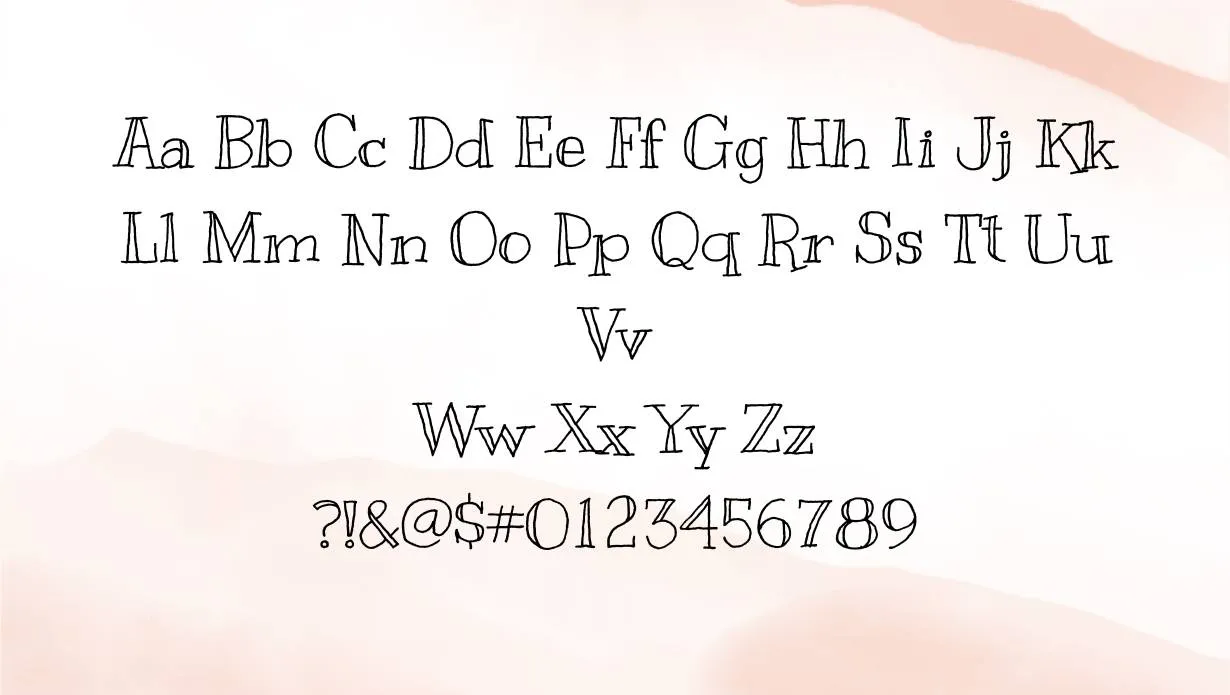
Kranky Font provides a bold and creative design that is often utilized in headlines, posters, and graphic design projects to make a powerful visual impact.
Its robust letterforms add an element of power and memorability to your designs. For a design that is distinct and visually striking, consider combining this font with the Moshita Mono Font.
| Name | Kranky Font |
| Designer | Sideshow |